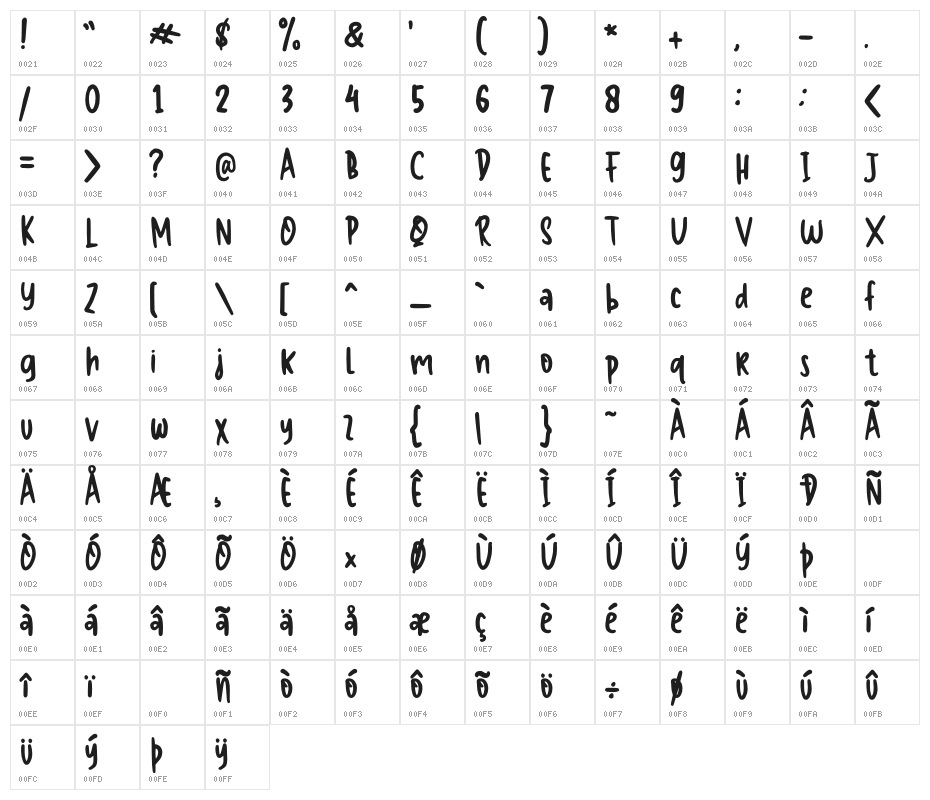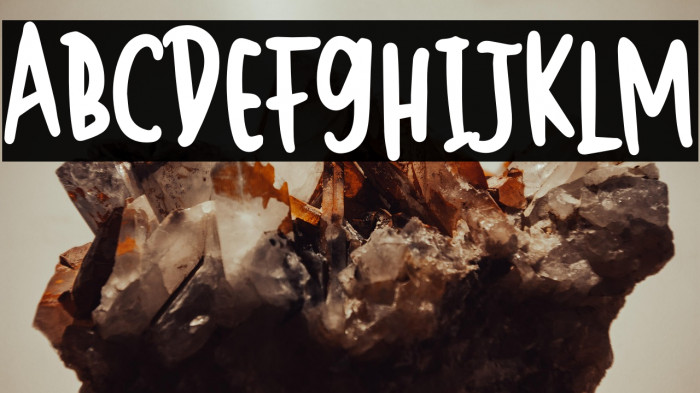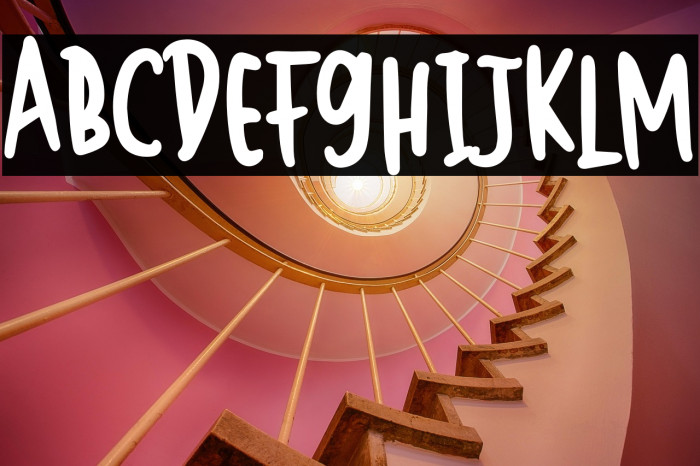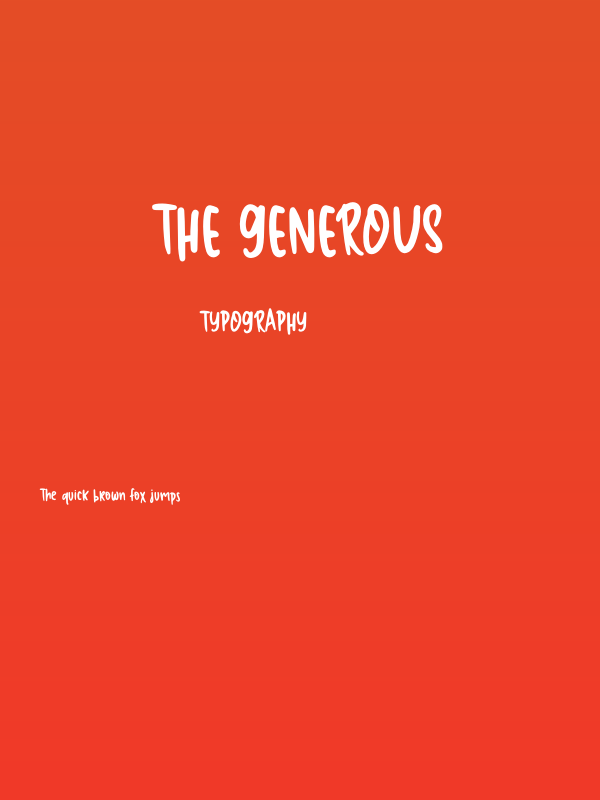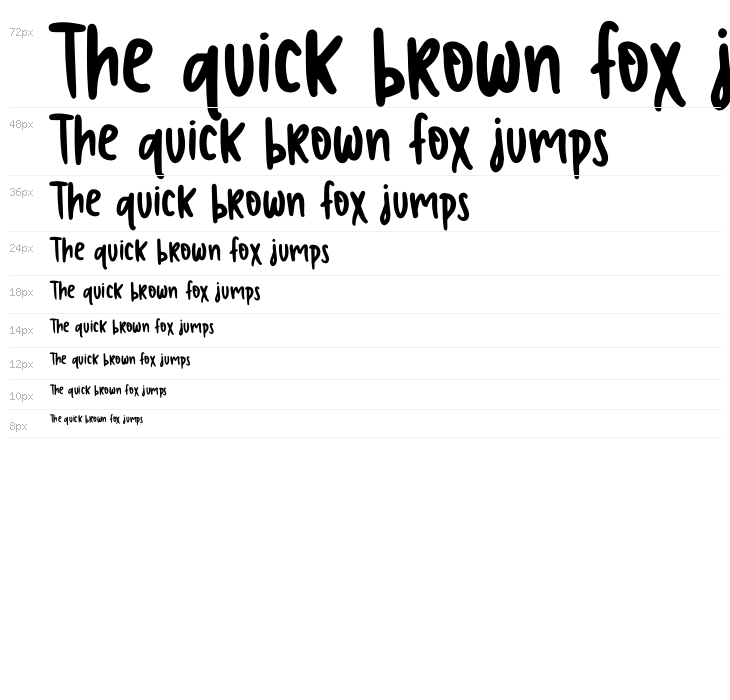
The Generous Font
The Generous Description
This font features a playful and informal handwritten style, characterized by its bold and slightly irregular letterforms. The strokes are thick and rounded, giving it a friendly and approachable appearance. The uppercase and lowercase letters maintain a consistent style, with a slight slant that adds to its casual feel. The numbers and special characters are designed to match the overall aesthetic, ensuring a cohesive look across all elements. This font is ideal for projects that require a personal touch, such as invitations, greeting cards, or playful branding.
| Use Case | Logos, Headlines, Informal Text |
| Proposed Projects | Ideal for greeting cards, playful branding, invitations, and informal posters. |